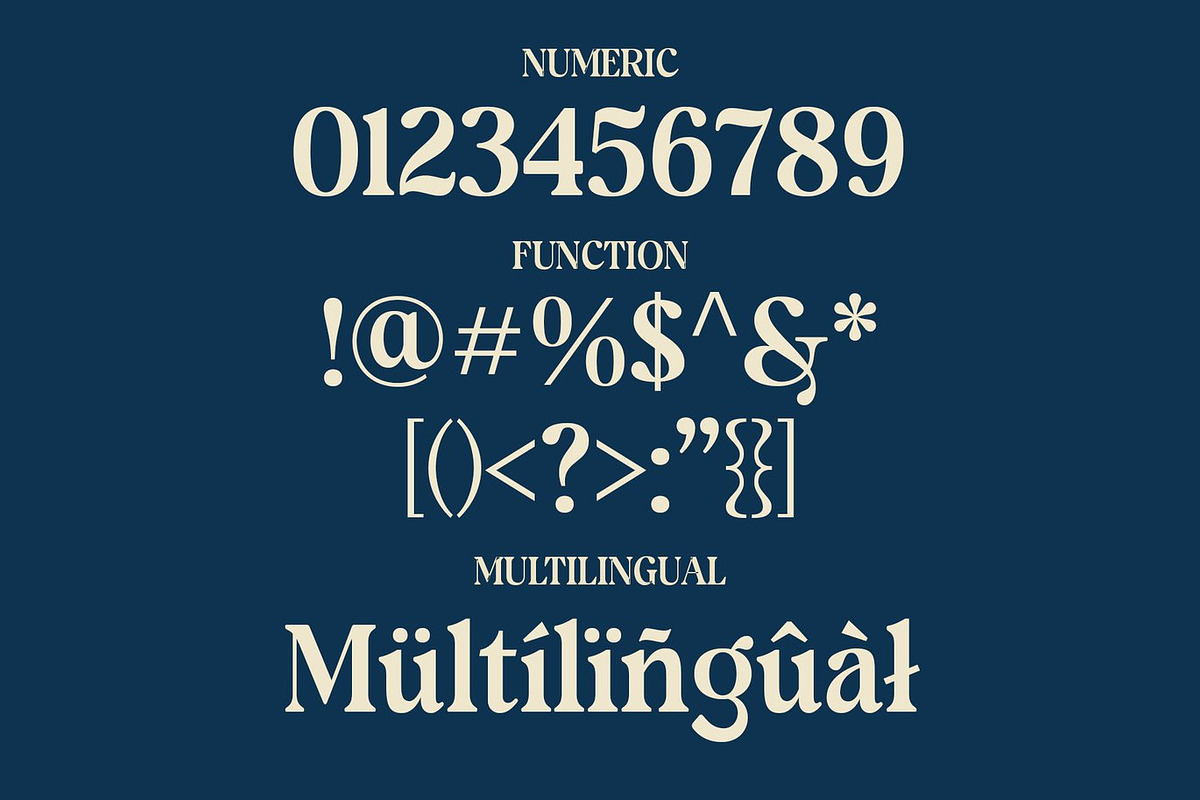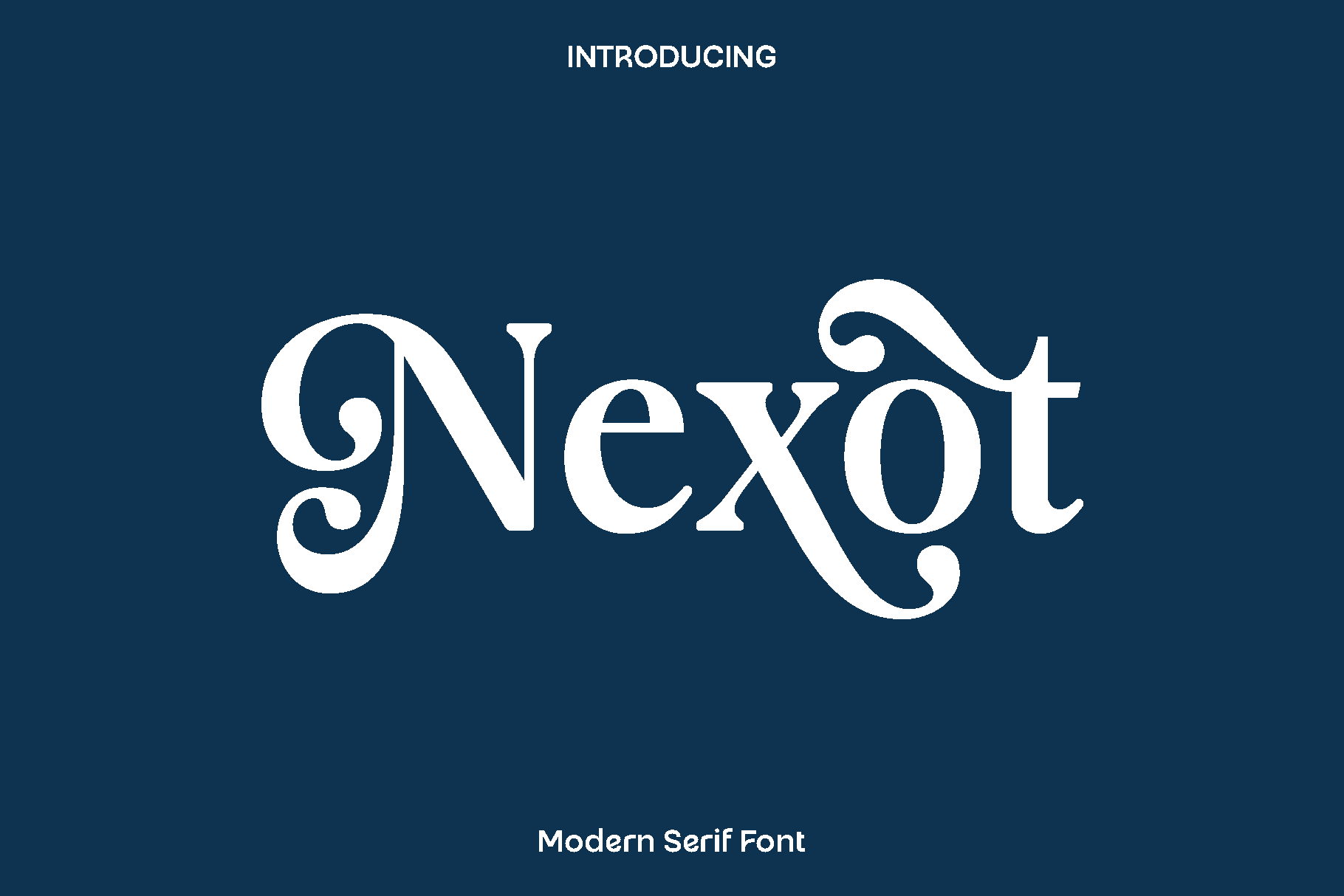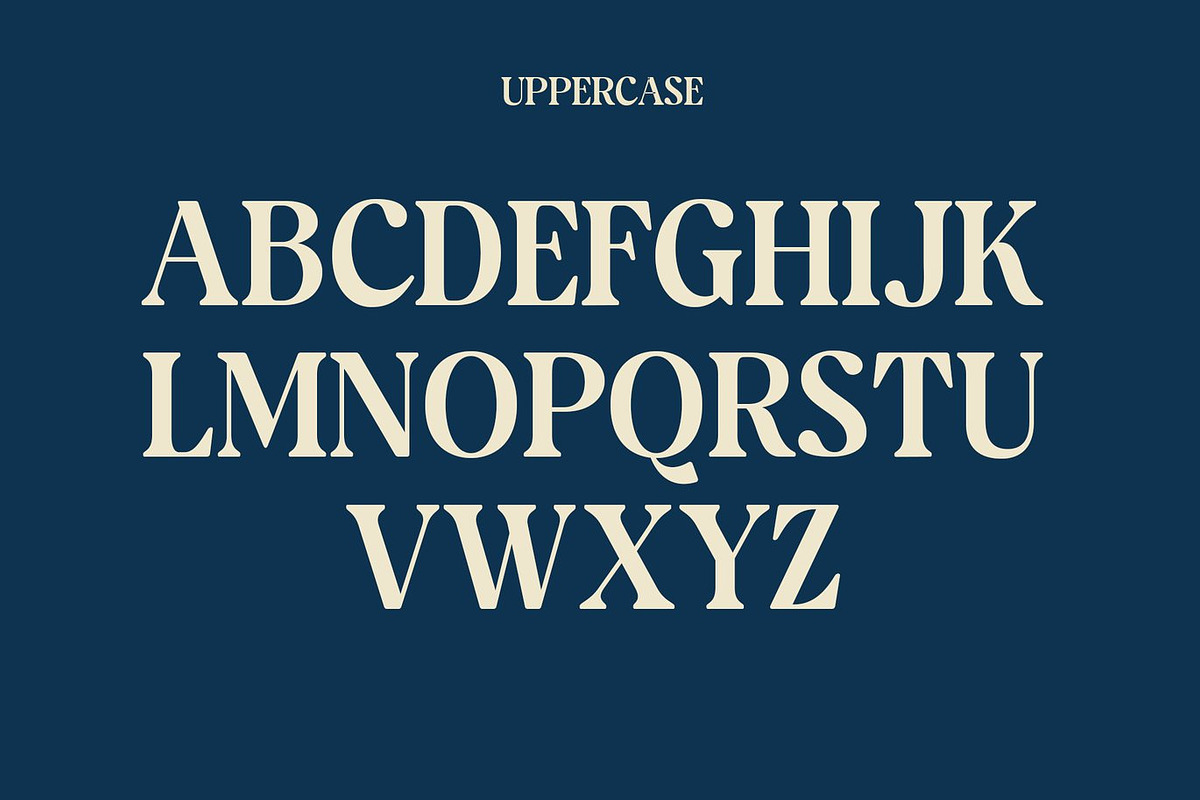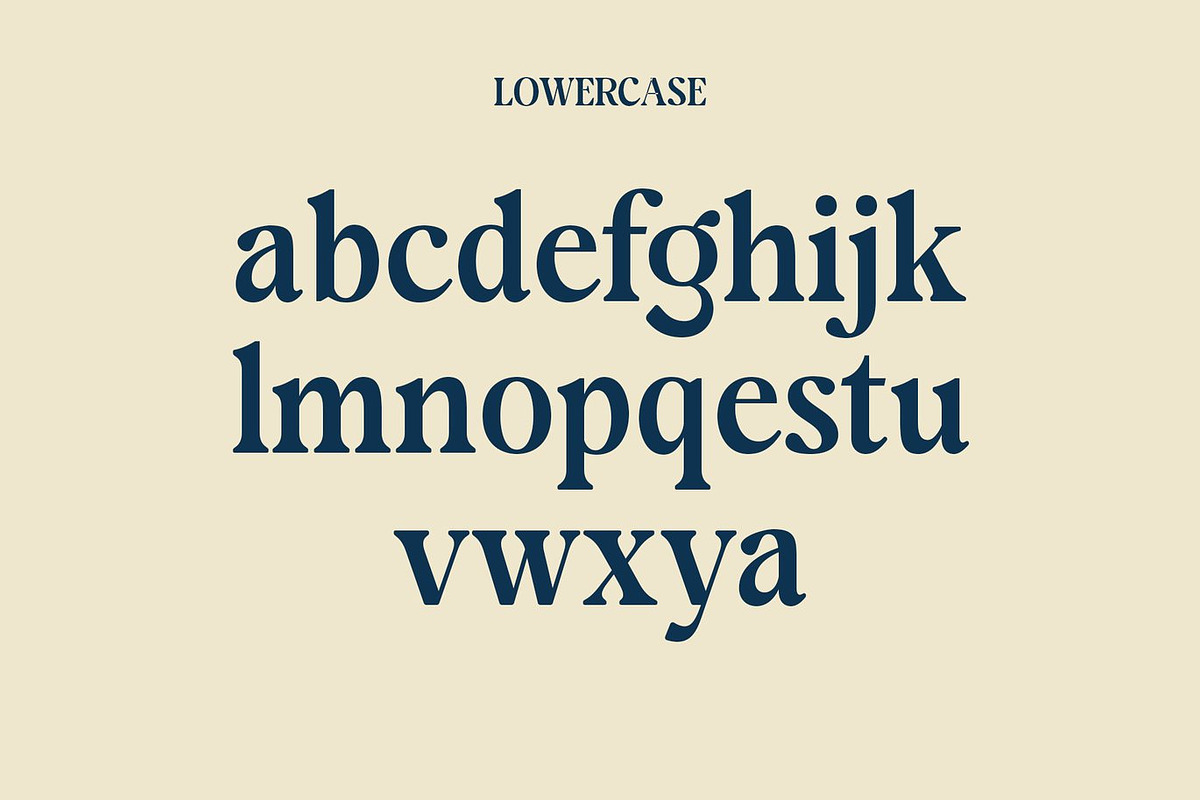
Nexot - Modern Serif Font
Nexot is a serif display font designed to express classic beauty with a soft feminine touch. Created with elegance at its core, Nexot draws inspiration from timeless typography and graceful editorial styles, blending refined letterforms with stylish alternates that add personality and charm. Each character is carefully crafted to feel sophisticated, smooth, and visually balanced, giving your designs a luxurious and polished presence.
This font shines in projects that require elegance and emotional appeal. Nexot is an excellent choice for logos and branding, wedding invitations, stationery, social media content, advertisements, and high end packaging. Its decorative alternates allow designers to create expressive typography for quotes, labels, photography watermarks, and special event materials, making every design feel personal and memorable.
Nexot feels graceful, romantic, and confident. It adapts beautifully to both digital and print applications, offering flexibility without losing its classic character. Whether used in bold headlines or delicate details, Nexot elevates your creative work with timeless style and feminine sophistication, making it a valuable addition to any designer’s font collection.
Nexot Serif Display Font Features:
• Elegant serif display characters
• Beautiful alternate stylist characters
• Punctuation, numbers, and symbols
• Uppercase and lowercase
• OpenType features